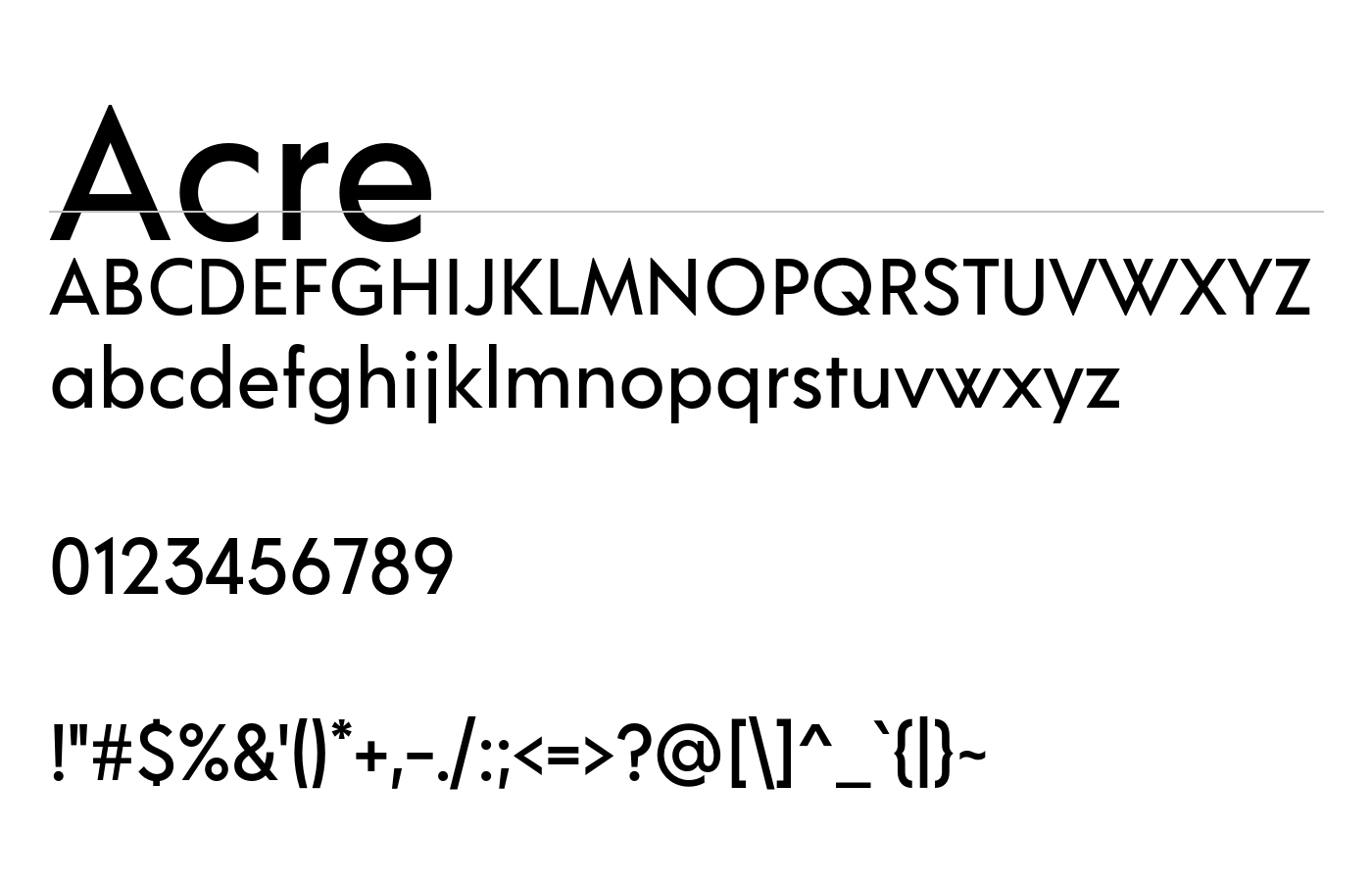
Acre is a clean and modern sans serif font with a balanced, slightly condensed structure that offers excellent readability. Its uniform stroke weight and geometric shapes give it a sleek, professional appearance, making it ideal for branding, editorial design, and digital interfaces where clarity and contemporary style are key. This versatile typeface works well for both headlines and body text, lending a polished and approachable tone to any project.
Acre Font
About Acre Font
| Font family | Acre Font |
| Designer | Jonathan Ball |